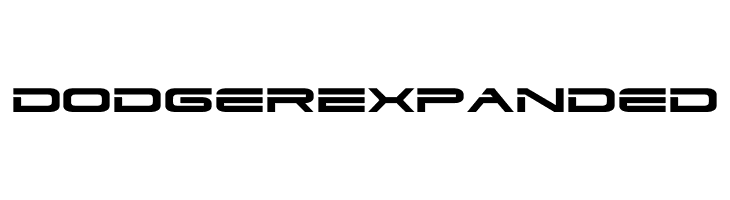
A bold, condensed font with sharp edges and a modern look.
A decorative sans-serif font with bold letters encased in circular borders.
A bold, distressed font with a vintage, handcrafted appearance.
A dynamic and expressive script font with fluid, sweeping strokes.
A playful, hand-drawn font with a casual and friendly vibe.
An ornate, calligraphy-inspired font with elaborate flourishes and dramatic strokes.
A bold, playful font with whimsical curves and decorative elements.
An elegant, flowing script font with intricate loops and flourishes.
A bold, geometric font with a futuristic and digital aesthetic.
A playful, bold font with rounded, bubbly characters.
设计师偏爱 Danse Macabre Condensed, Tundra Light Regular, AmnestiaDistressed, WildbreakDEMO-Regular and Yillhand Regular,因为其造型干净、适用范围广—— 从品牌识别到落地页、海报都能胜任。